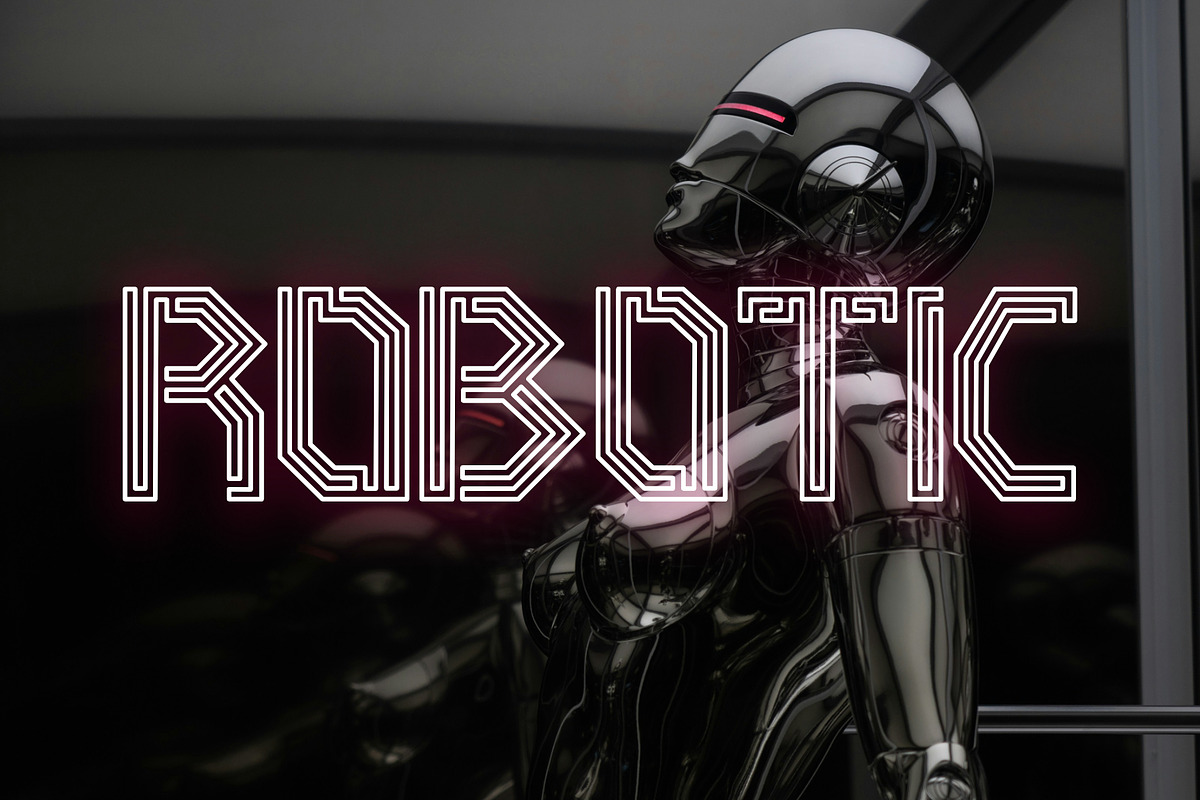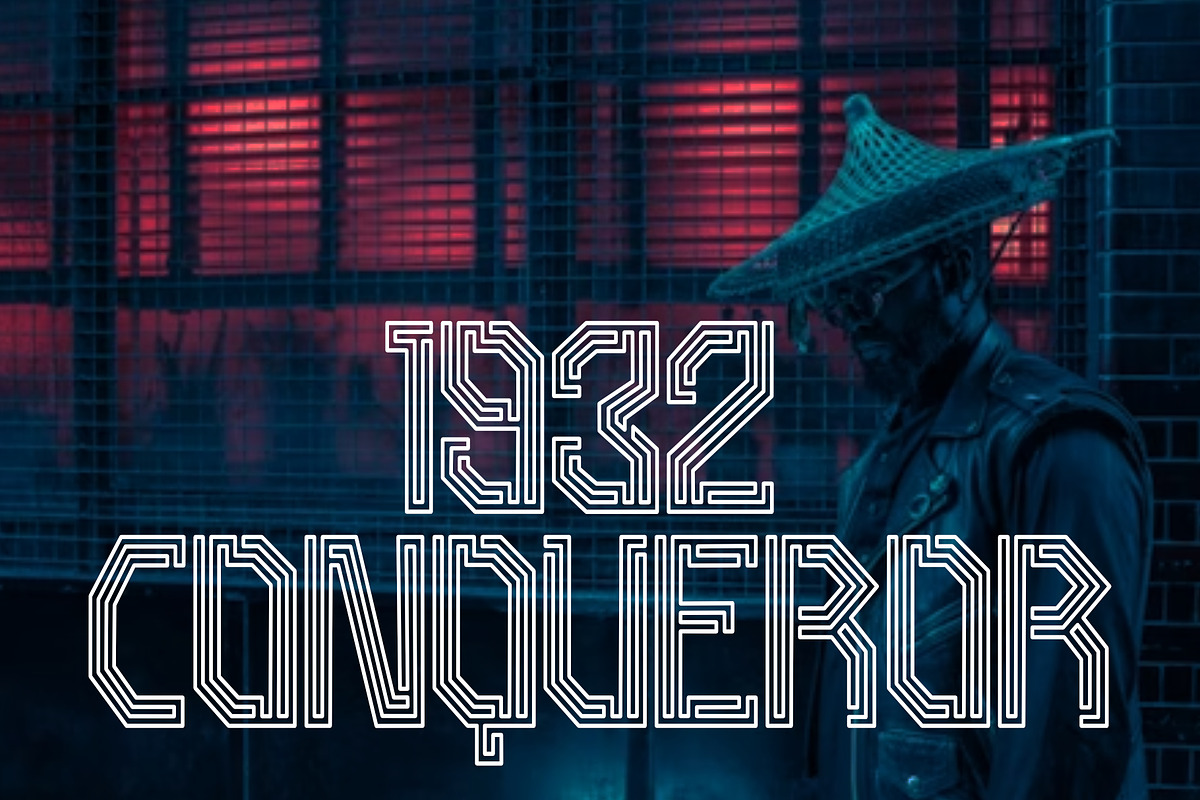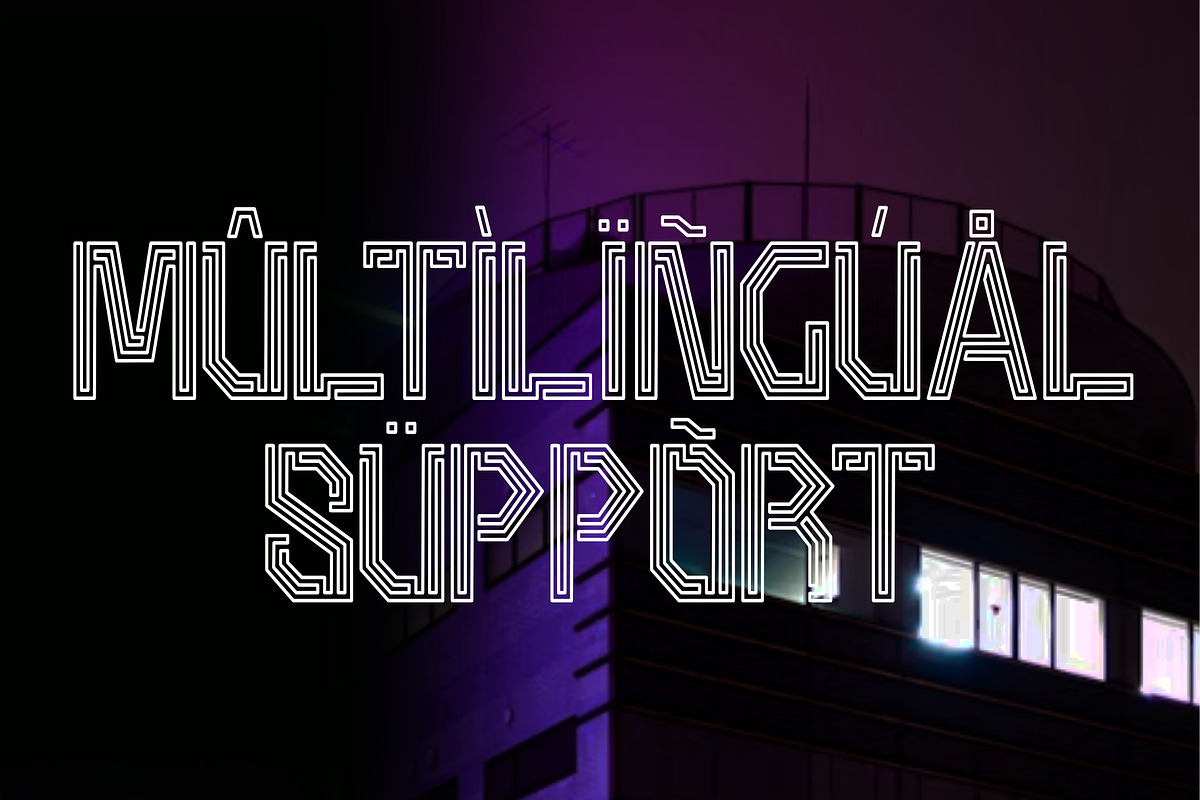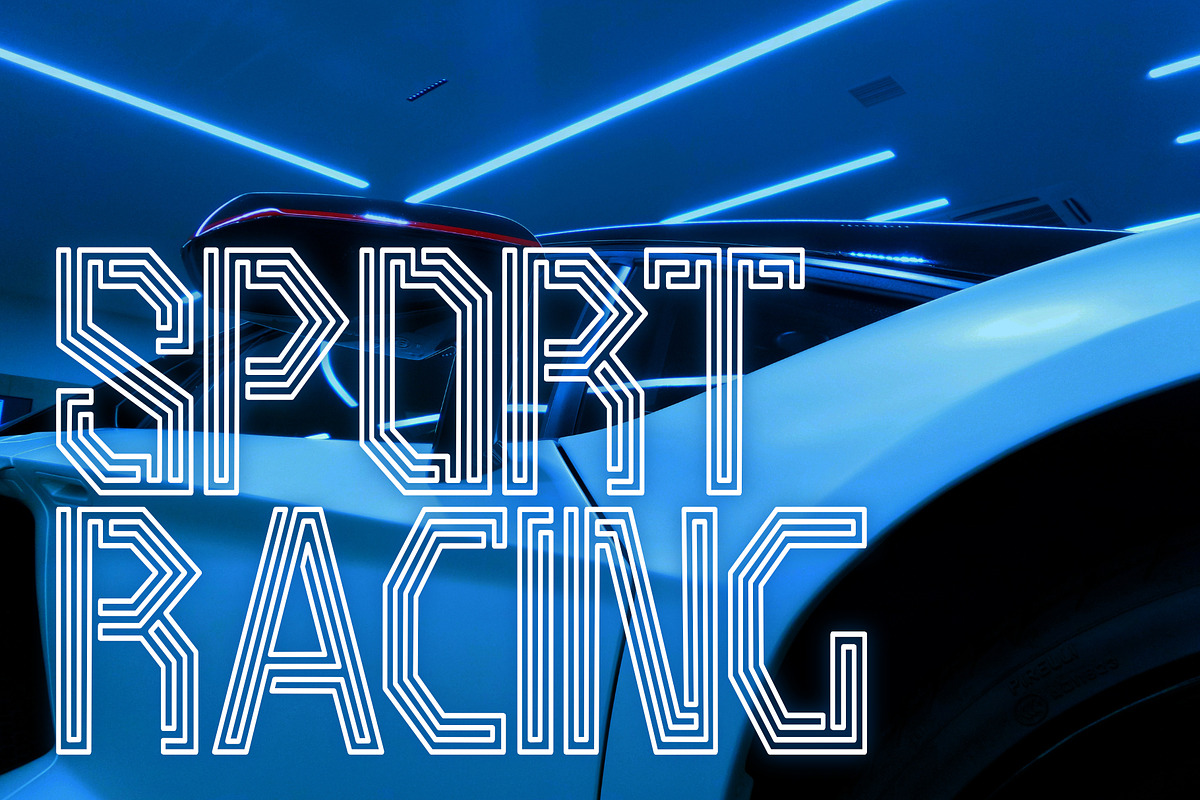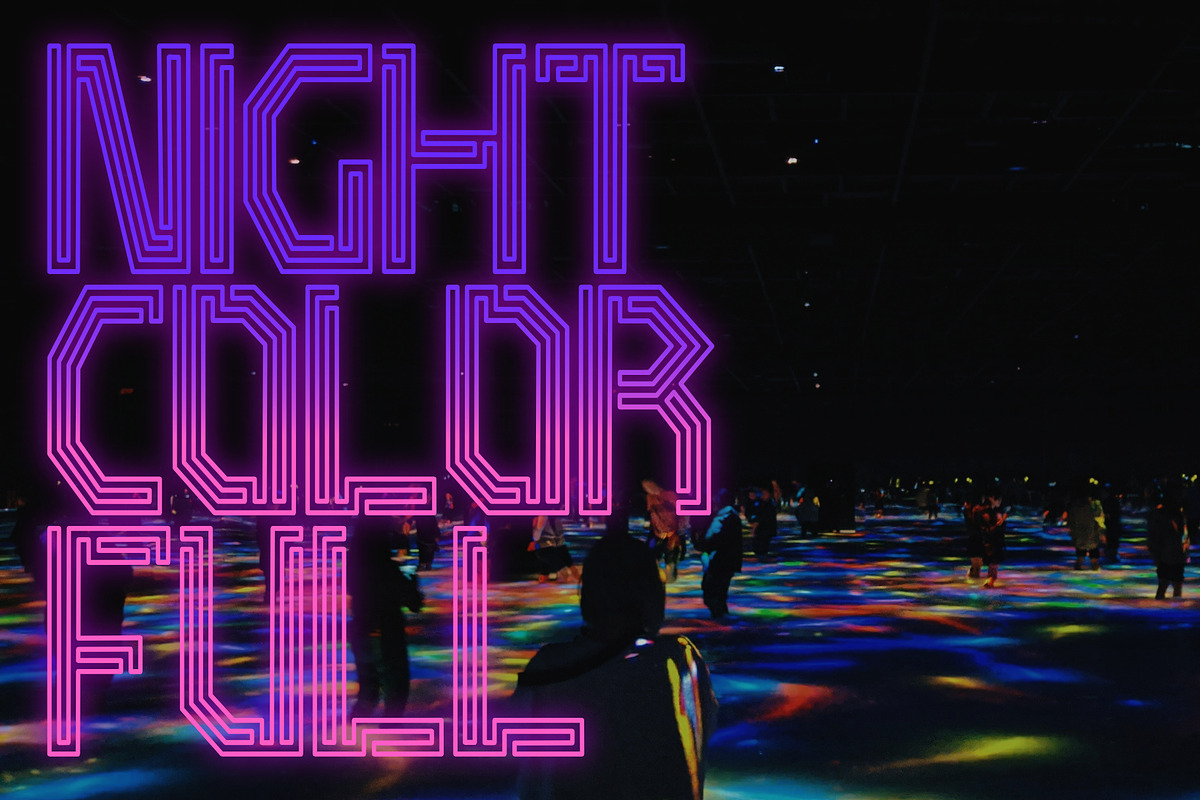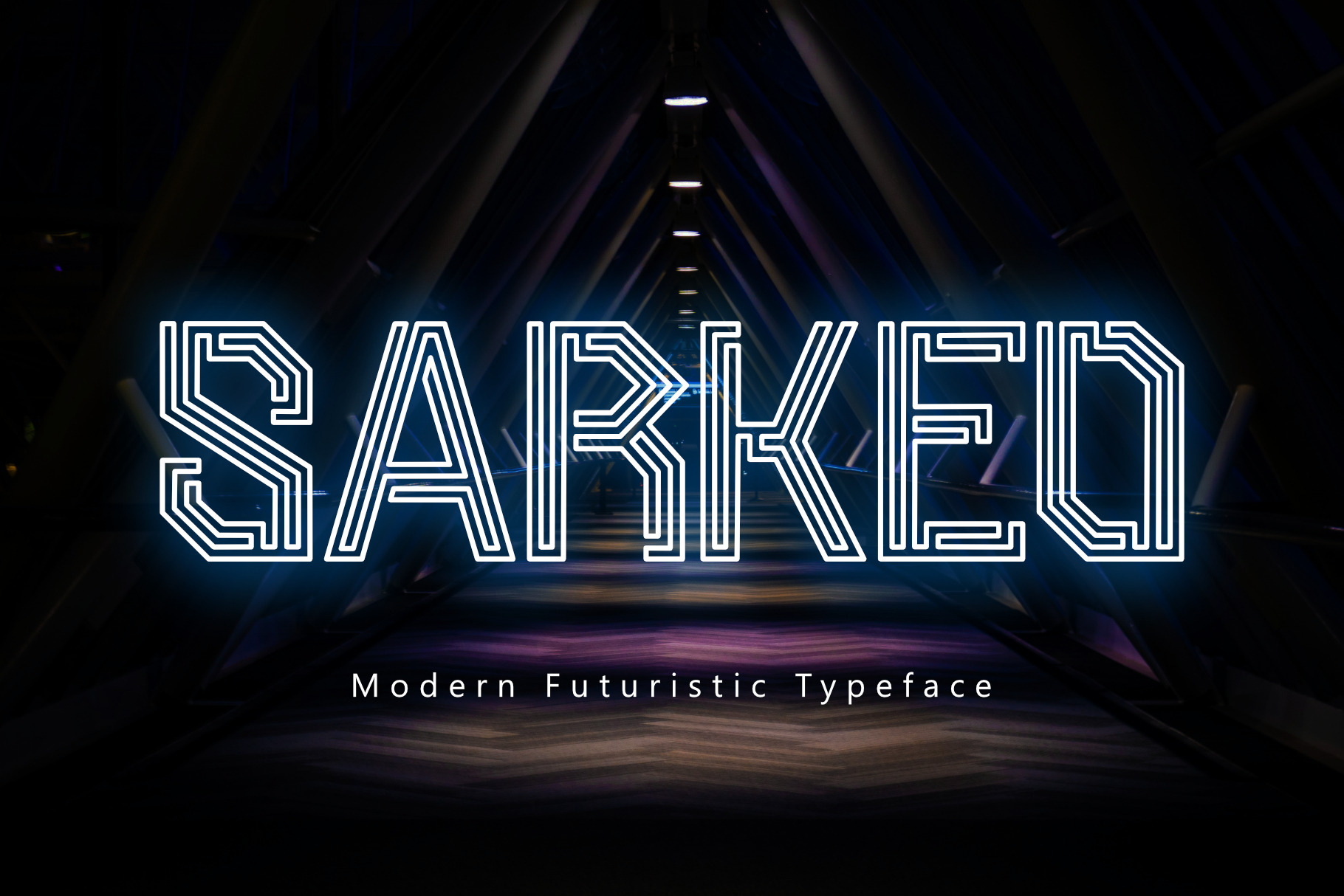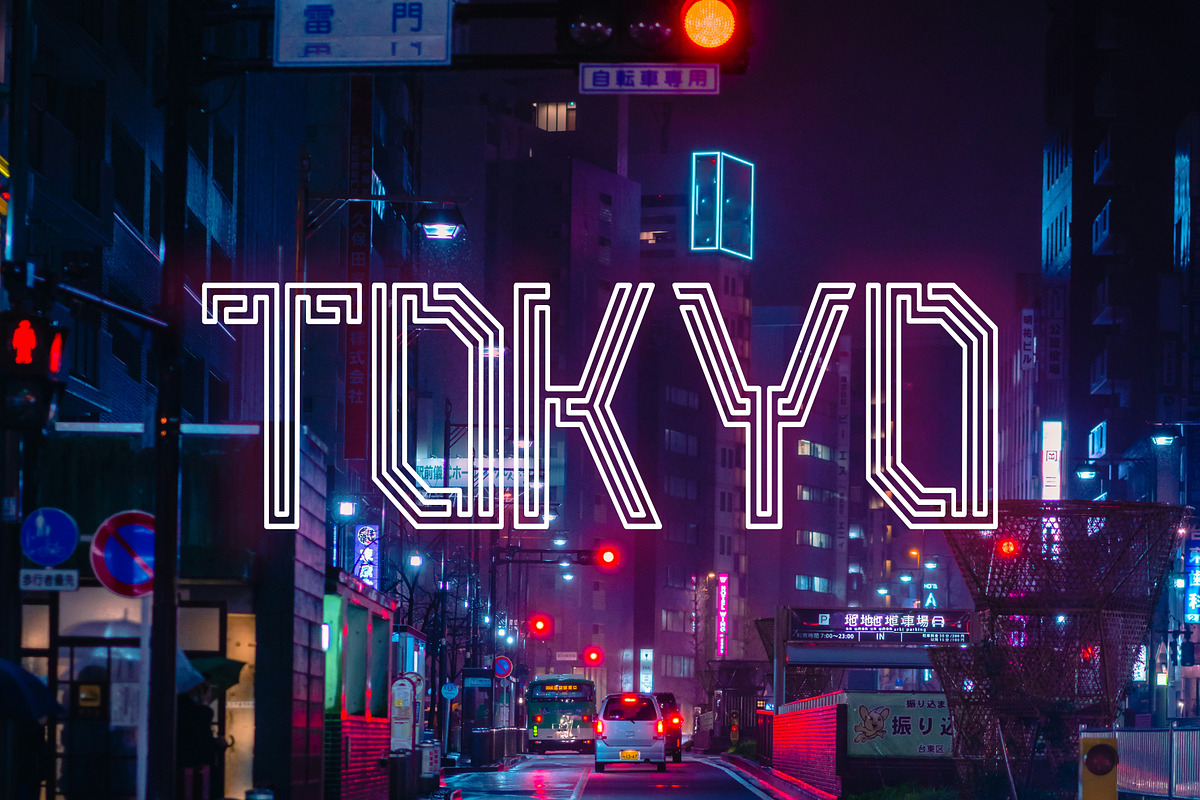
Sarkeo | Modern Futuristic Font
Sarkeo Futuristic Font is a modern, stacked, and lined typeface that embodies the essence of futurism. With its clean lines and geometric shapes, this font is perfect for projects that require a contemporary and innovative look. Whether you're designing a website, creating a logo, or producing a poster, Sarkeo Futuristic Font will enhance your design and captivate your audience. Its versatility and unique style make it a must-have for designers looking to push the boundaries of typography.